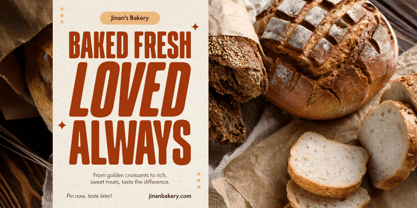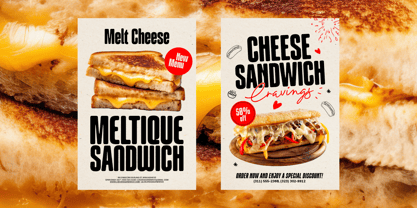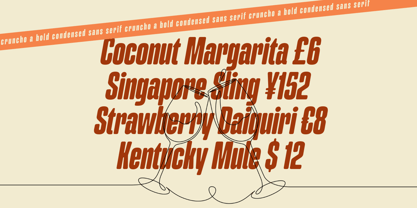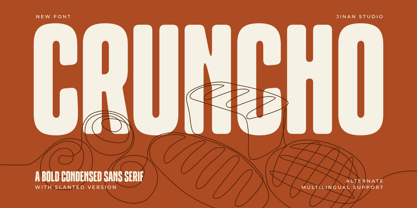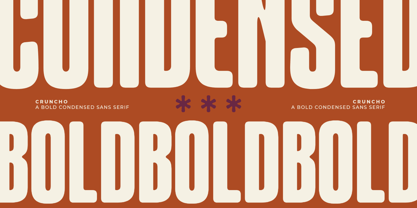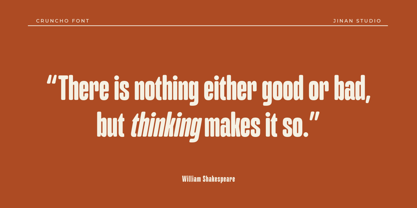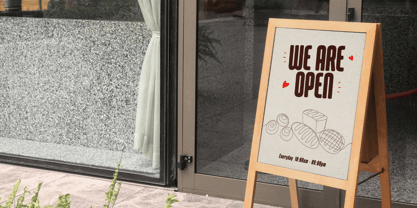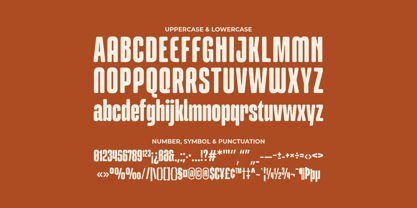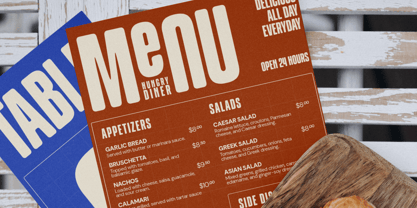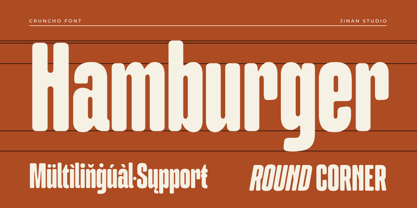
Cruncho
by Jinan Studio
The Cruncho Font Family was designed by Andi Syahdang, Ainun Jinan and published by Jinan Studio. Cruncho contains 2 styles and family package options. More about this family
Cruncho is a bold condensed sans serif designed to make a strong, confident statement. With its tall, compact letterforms and powerful presence, this typeface is perfect for grabbing attention while maintaining a clean and modern look. Built for impact, Cruncho works exceptionally well for food branding, packaging, posters, headlines, logos, restaurant menus, streetwear designs, and social media graphics. The condensed structure allows you to maximize space without sacrificing readability, making it ideal for bold display purposes. It also includes a slanted version and stylistic alternates, giving you flexibility to create dynamic, energetic compositions. With multilingual support, Cruncho is ready for global branding projects. If you’re looking for a typeface that feels strong, contemporary, and packed with personality, Cruncho delivers high-impact typography with a modern edge. Features A set of uppercase and lowercase glyphs Number, symbol, and punctuation Multilingual Support Some Alternates Slant Version
Jinan Studio, founded by Ainun Jinan, is a font studio based in Makassar City, Indonesia. With a focus on handmade typography. With three years of experience, the studio creates unique, visually captivating, and expressive fonts that can be used in various design projects. Their commitment to craftsmanship and attention to detail sets them apart, while their personalized approach and dedication to customer satisfaction make them a reliable choice for clients.